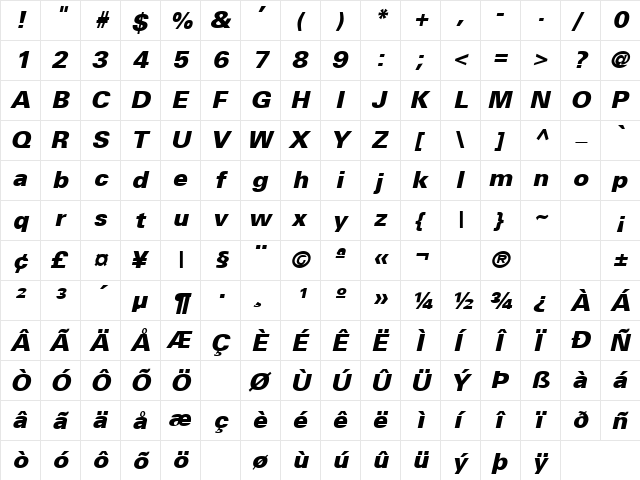
Black Dog 17 Italic Font Preview
Black Dog 17 Italic
Design Context for Black Dog 17 Typeface
Black Dog 17 takes a measured approach to typography — its balanced proportions and neutral character make it a reliable workhorse for both digital and print work. Its italic angle brings a sense of urgency and motion to the letterforms.
Pro Tip: Try Black Dog 17 for annotation and caption copy alongside an upright companion — the contrast in angle creates a dynamic but ordered typographic system.